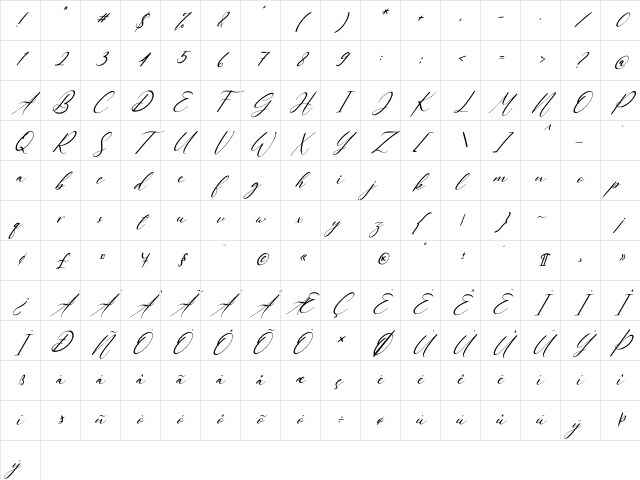
Heallington Italic Regular Free Font
Heallington Italic Regular
Foundry: Staircase Studio
Designer: Staircase Studio
Design Context for Heallington Italic
Heallington Italic is a composed and adaptable typeface that performs quietly and consistently across a wide range of design contexts. The slanted form adds forward momentum and visual energy.
Pro Tip: Use Heallington Italic for emphasis, pull quotes, and subheadings where its slanted energy can add rhythm to the layout.